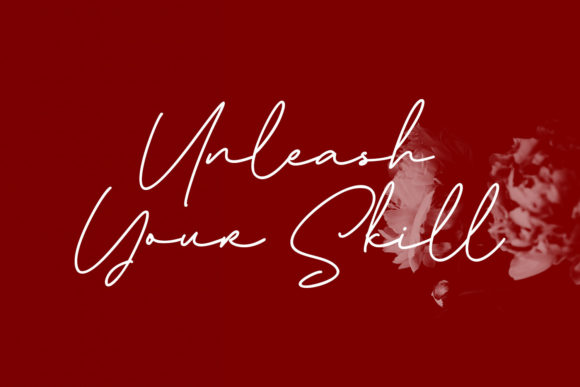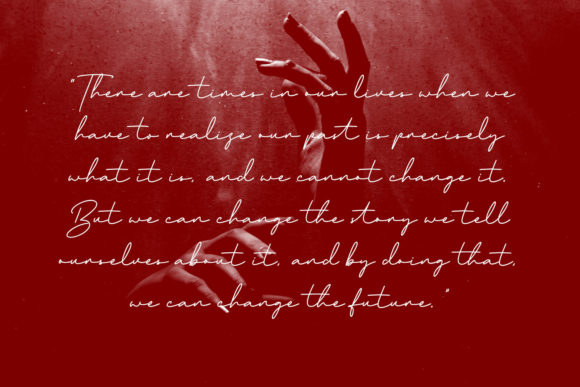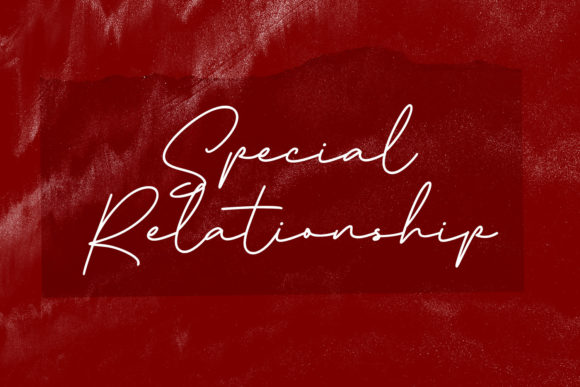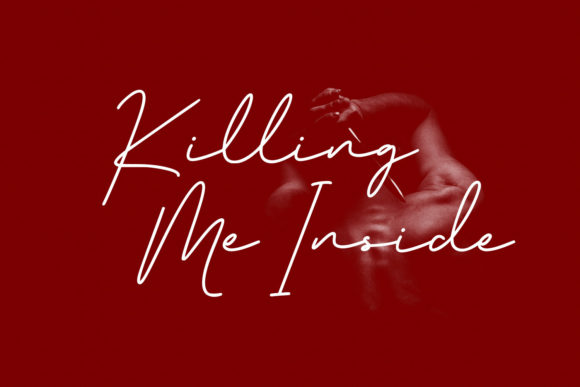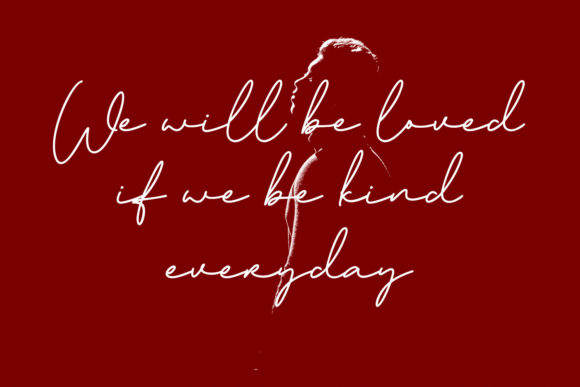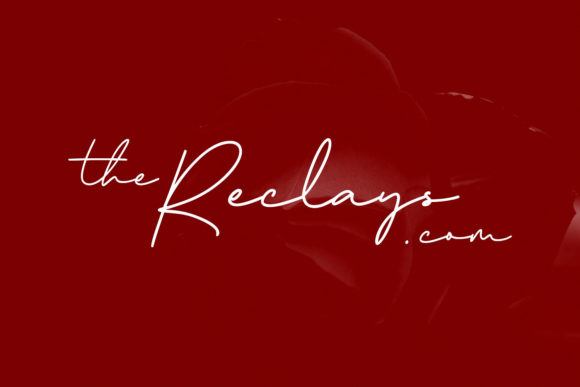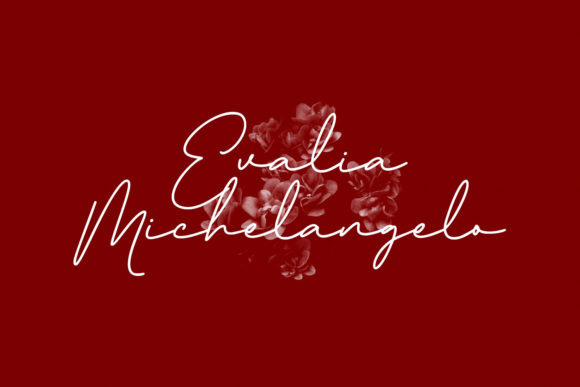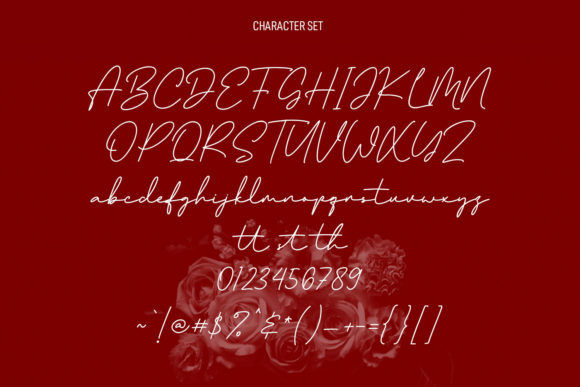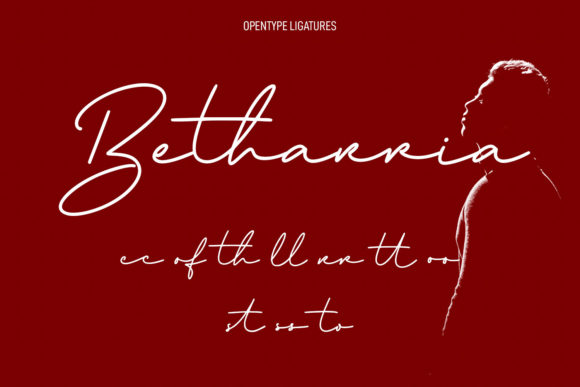
Coflocks Script Font
About Coflocks Script Font
Coflocks Script is a thin lettered, fashionable and unique handwritten font. It looks stunning on wedding invitations, thank you cards, quotes, greeting cards, logos, business cards and every other design which needs a handwritten touch.